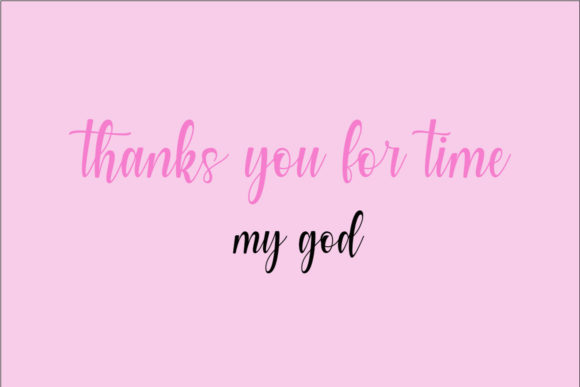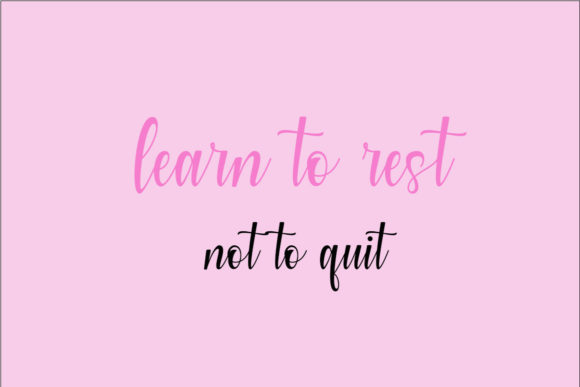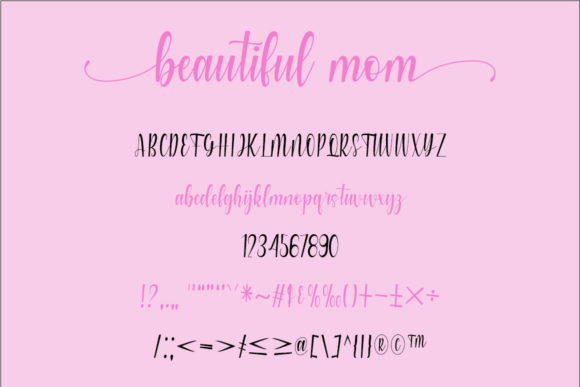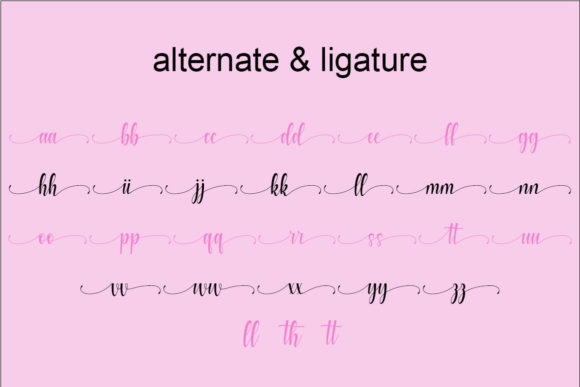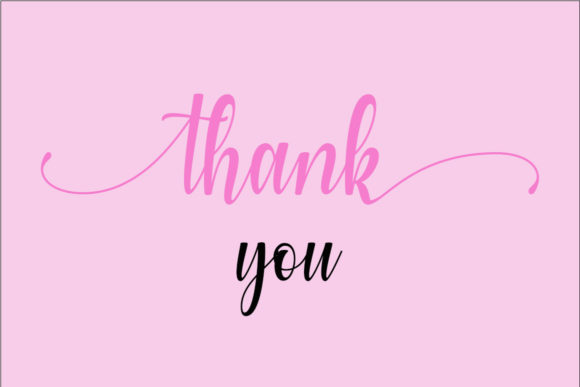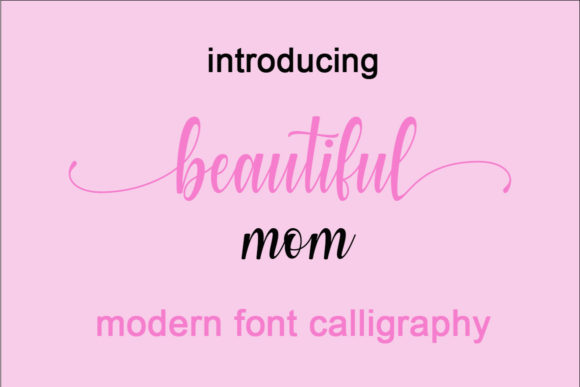
Introducing Beautiful Mom Font: The Perfect Addition to Your Design Arsenal
Are you a designer, crafter, or DIY enthusiast looking for a font that can add a touch of elegance and sophistication to your projects? Look no further than the Beautiful Mom Font, an enchanting handwritten typeface that is sure to capture the hearts of your audience. In this article, we’ll dive into the features and benefits of this versatile font, and explore how it can elevate your designs to the next level.
What is Beautiful Mom Font?
Beautiful Mom Font is a stunning handwritten font that boasts a unique and captivating charm. Its elegant strokes and flowing lines make it perfect for a wide range of applications, from greeting cards and invitations to headlines and titles. Whether you’re creating a DIY project, a professional design, or simply looking for a font to add some personality to your digital content, Beautiful Mom Font is an excellent choice.
Key Features of Beautiful Mom Font
- PUA Encoded: Beautiful Mom Font is PUA (Private Use Area) encoded, which means you can access all of the glyphs and swashes with ease. This feature allows you to unlock the full potential of the font and add an extra layer of creativity to your designs.
- Handwritten Style: The font’s handwritten style gives it a warm, personal, and inviting feel that’s perfect for creating emotional connections with your audience.
- Versatile: Beautiful Mom Font is incredibly versatile and can be used for a wide range of applications, from digital content to print materials.
Benefits of Using Beautiful Mom Font
So, why choose Beautiful Mom Font for your next project? Here are just a few benefits of using this amazing font:
- Adds Emotional Connection: The font’s handwritten style and elegant strokes create an emotional connection with your audience, making your designs more relatable and engaging.
- Enhances Creativity: With its PUA encoding and wide range of glyphs and swashes, Beautiful Mom Font gives you the creative freedom to experiment and try new things.
- Perfect for DIY Projects: Whether you’re creating handmade cards, scrapbooking, or crafting, Beautiful Mom Font is the perfect addition to your design toolkit.
How to Use Beautiful Mom Font
Using Beautiful Mom Font is easy! Here are a few tips to get you started:
- Pair it with Other Fonts: Experiment with pairing Beautiful Mom Font with other fonts to create stunning contrast and visual interest.
- Experiment with Colors: Try using different colors and textures to add depth and dimension to your designs.
- Play with Glyphs and Swashes: With its PUA encoding, Beautiful Mom Font offers a wide range of glyphs and swashes to experiment with – don’t be afraid to get creative!
In conclusion, Beautiful Mom Font is a must-have addition to any designer’s or crafter’s toolkit. Its enchanting handwritten style, PUA encoding, and versatility make it perfect for a wide range of applications. Whether you’re creating DIY projects, professional designs, or simply looking for a font to add some personality to your digital content, Beautiful Mom Font is an excellent choice. So why wait? Download Beautiful Mom Font today and start creating stunning designs that capture the hearts of your audience!